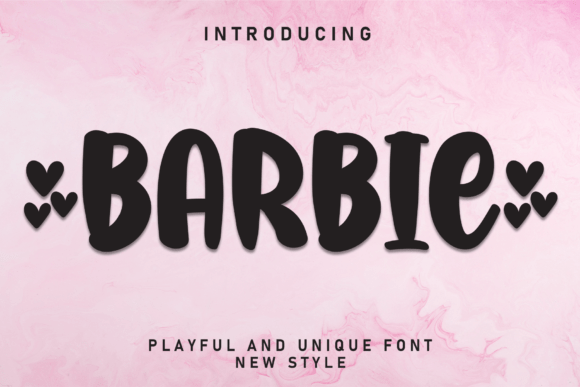
Introducing Barbie Font: The Ultimate Display Handwritten Font for Creative Designs
Are you tired of using generic fonts that lack personality and charm? Look no further than the Barbie Font, a display handwritten font that bursts with warmth and character. This stunning font is designed to capture the essence of real handwriting, with bold, eye-catching strokes that are sure to make your designs stand out.
A Font that Combines Authenticity and Flair
The Barbie Font is perfect for designers and crafters who want to add a personal touch to their work. Whether you’re creating a logo, social media graphics, posters, or any other type of design, this font brings authenticity and flair to the table. Its natural flow and expressive strokes make it ideal for crafting heartfelt quotes, branding creative products, and more.
Key Features of the Barbie Font
- Handwritten with love: The Barbie Font is a true handwritten font, crafted with care and attention to detail to capture the warmth and personality of real handwriting.
- Bold and eye-catching: With its bold strokes and charming character, this font is designed to stand out and grab attention.
- Natural flow: The Barbie Font maintains a natural flow that’s perfect for creating designs that feel organic and authentic.
- Versatile: This font is perfect for a wide range of design applications, from logos and social media graphics to posters and more.
Why Choose the Barbie Font?
So why choose the Barbie Font over other display handwritten fonts? Here are just a few reasons:
- Unique character: The Barbie Font has a unique character that’s all its own, making it perfect for designers who want to create distinctive and memorable designs.
- Easy to read: Despite its bold and expressive strokes, the Barbie Font is easy to read, making it perfect for designs that require a clear and concise message.
- Customizable: The Barbie Font can be customized to fit your design needs, allowing you to adjust the size, color, and style to suit your brand.
Design Ideas with the Barbie Font
The Barbie Font is a versatile font that can be used in a wide range of design applications. Here are a few ideas to get you started:
- Logos: Use the Barbie Font to create a unique and memorable logo that captures the personality and charm of your brand.
- Social media graphics: Add a personal touch to your social media graphics with the Barbie Font, perfect for creating engaging and shareable content.
- Posters: Create eye-catching posters with the Barbie Font, ideal for promoting events, products, or services.
- Branding: Use the Barbie Font to create a cohesive brand identity that reflects your values and personality.
In conclusion, the Barbie Font is a stunning display handwritten font that’s perfect for designers and crafters who want to add a personal touch to their work. With its bold, eye-catching strokes and natural flow, this font brings authenticity and flair to any design. Whether you’re creating a logo, social media graphics, posters, or any other type of design, the Barbie Font is sure to make your work stand out.